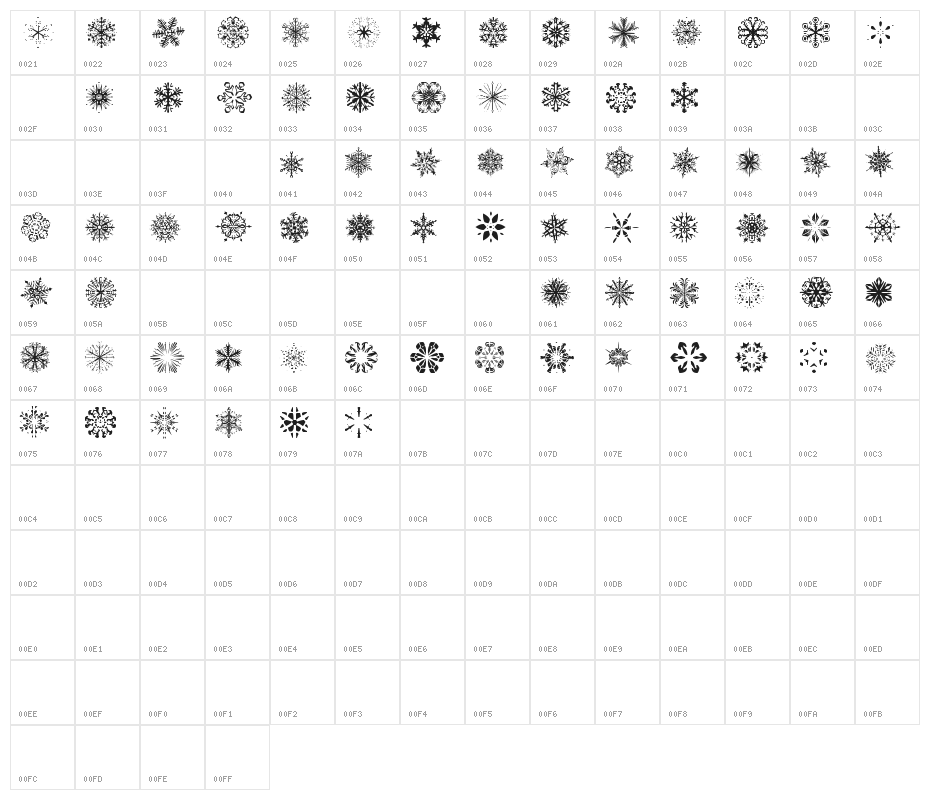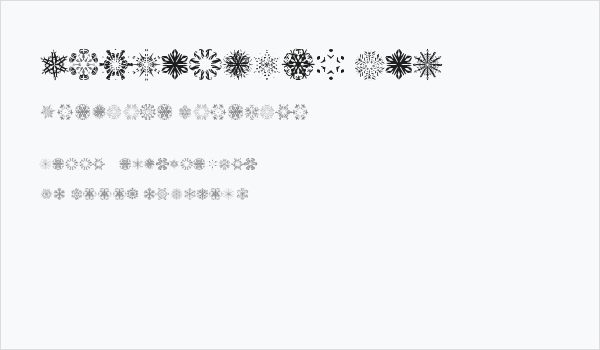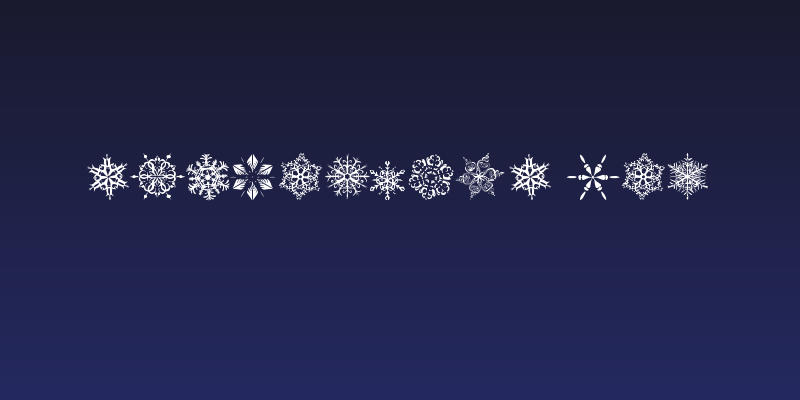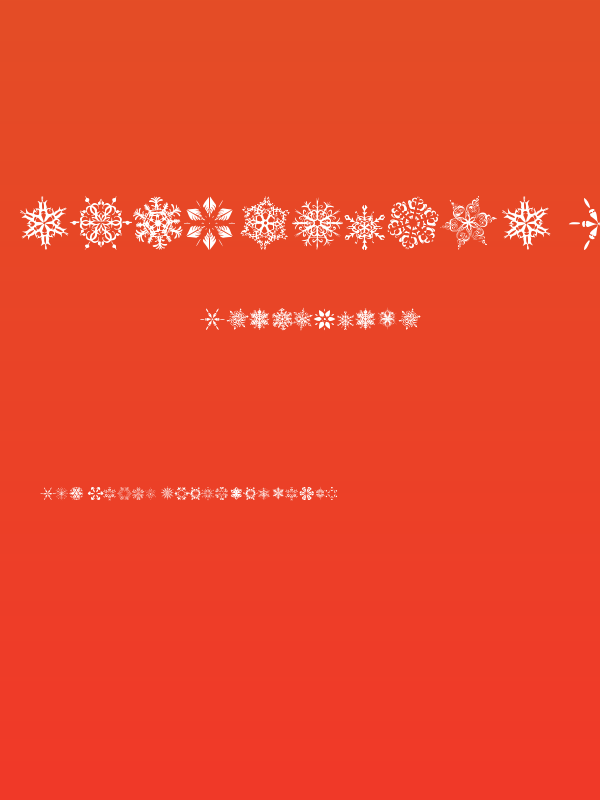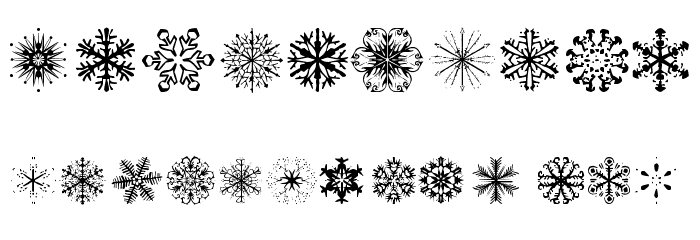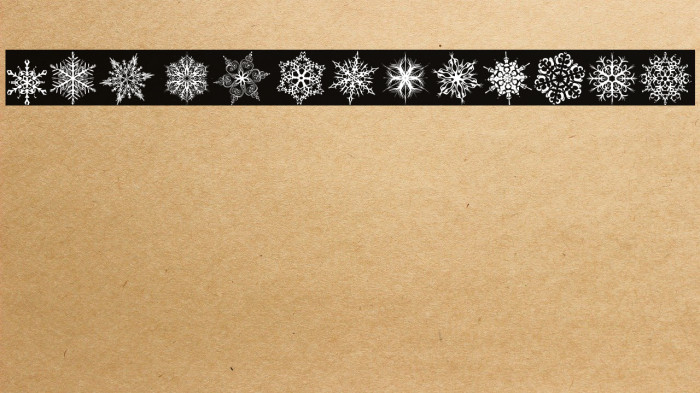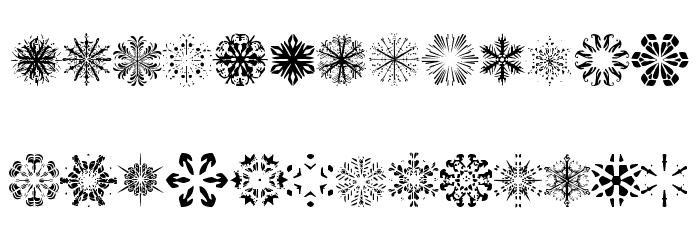
Snowflakes tfb Font
Snowflakes tfb Description
A decorative display font consisting entirely of intricate snowflake and winter-themed glyphs, each character representing a unique snowflake design with varying levels of detail and symmetry.
| Overall Style | Decorative, Seasonal, Festive |
| Use Case | Logos, Headlines, Decorative elements |
| Proposed Projects | Holiday cards, winter event invitations, seasonal branding, festive posters, decorative borders, digital scrapbooking. |